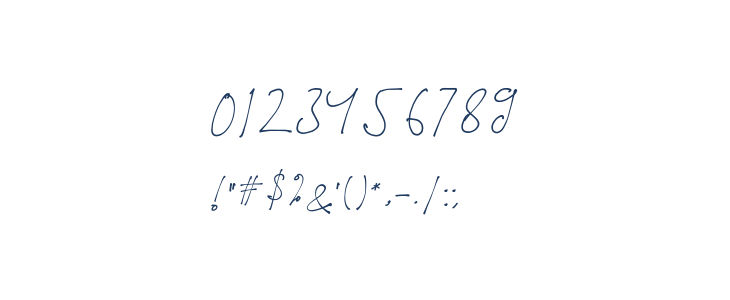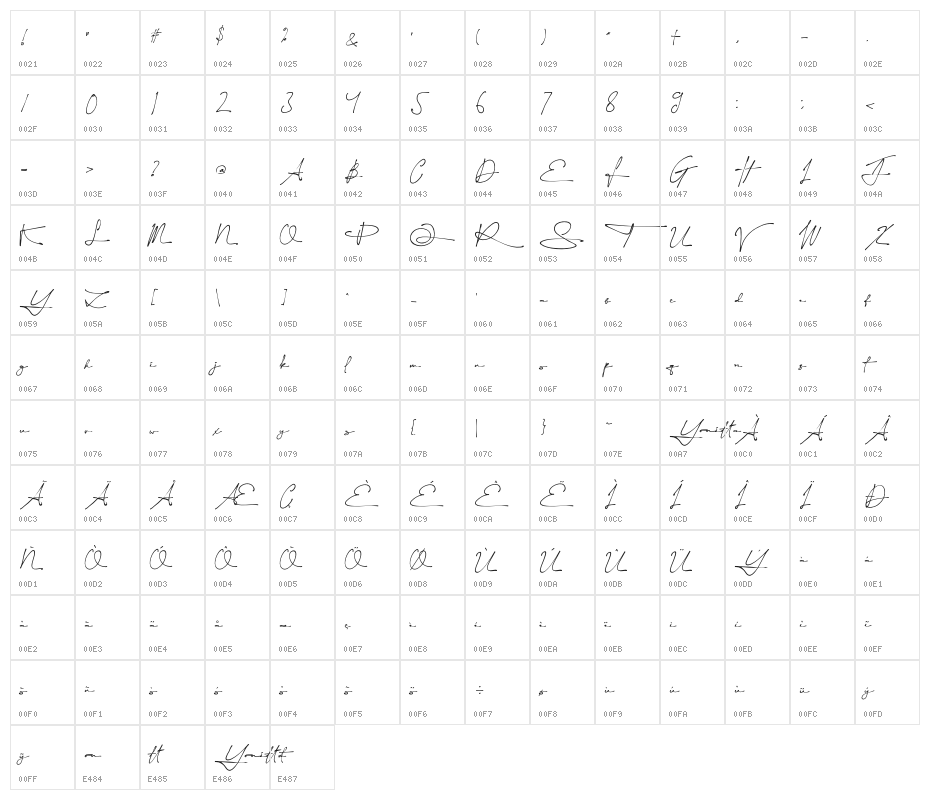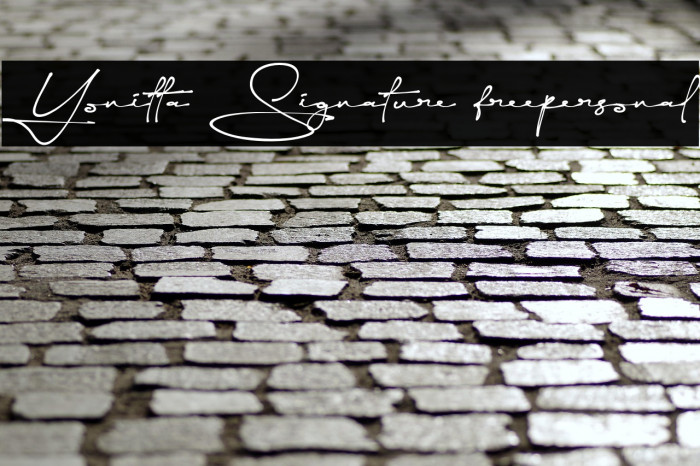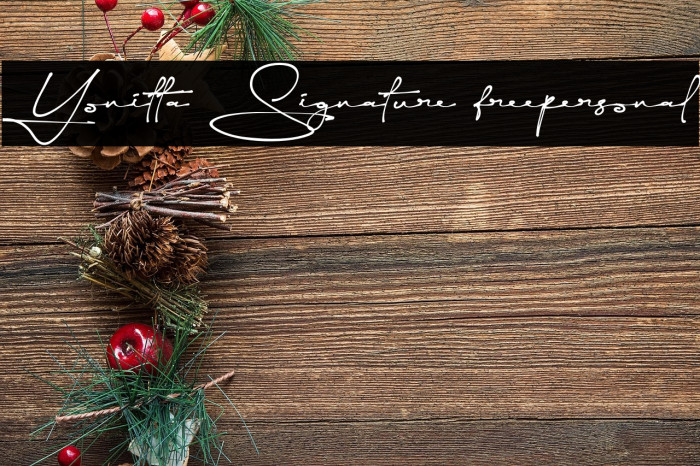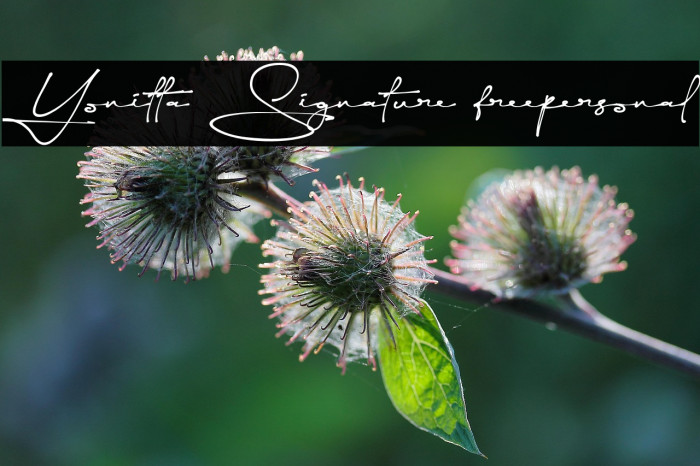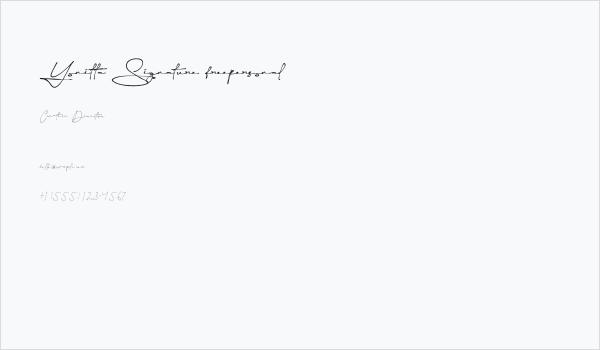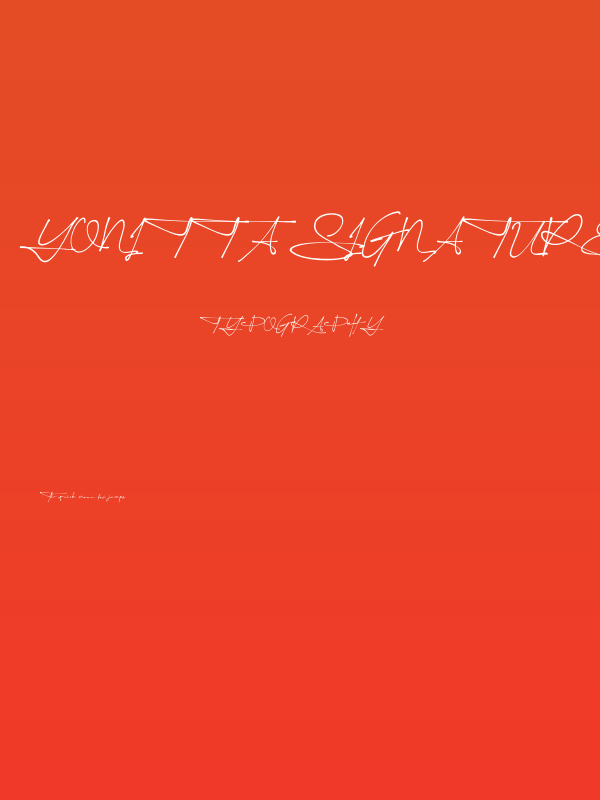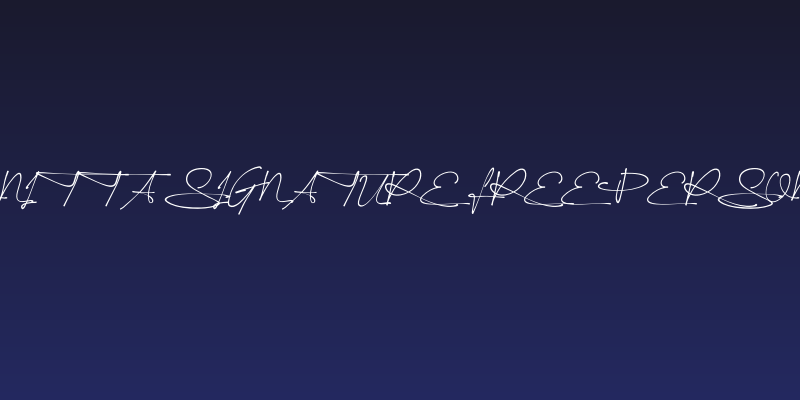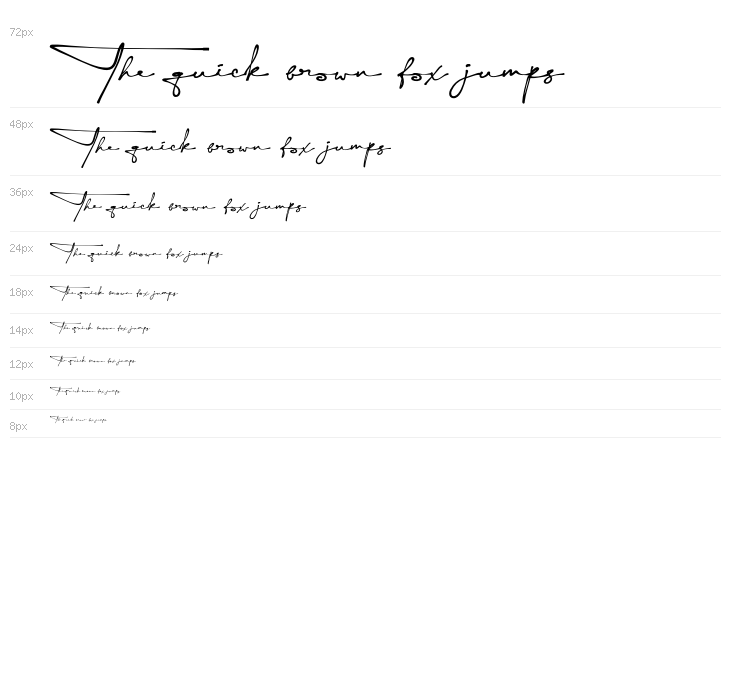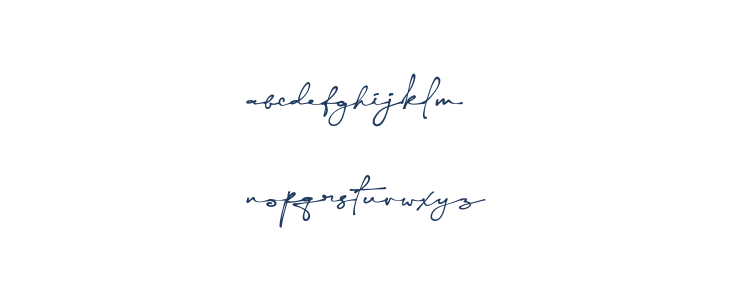
Yonitta Signature freepersonal Font
Yonitta Signature freepersonal Description
This font exudes a personal and artistic flair, characterized by its flowing, cursive style that mimics natural handwriting. The uppercase letters are bold and expressive, with exaggerated loops and flourishes that add a touch of elegance and sophistication. The lowercase letters maintain a consistent fluidity, offering a seamless connection between characters. Numbers and special characters are crafted with the same attention to detail, ensuring a cohesive look across all elements. The overall design is both stylish and legible, making it suitable for a variety of creative applications.